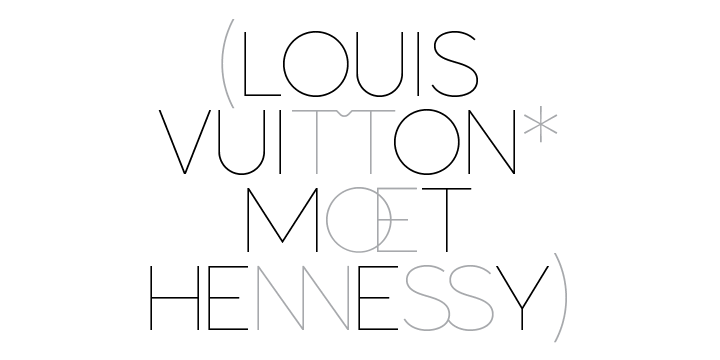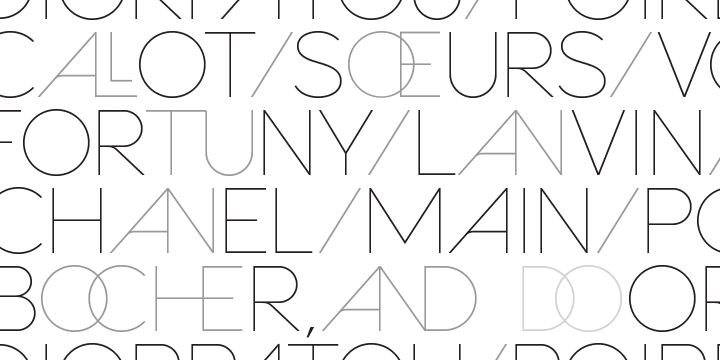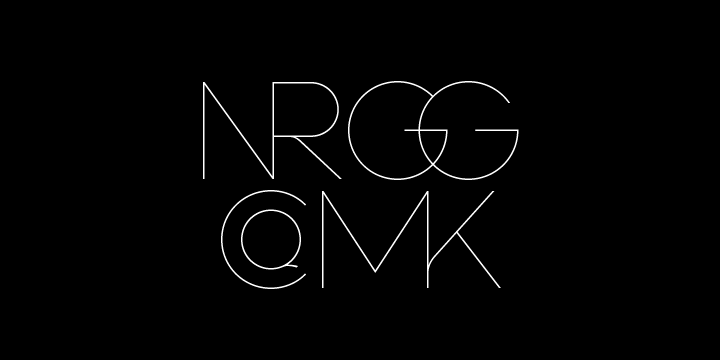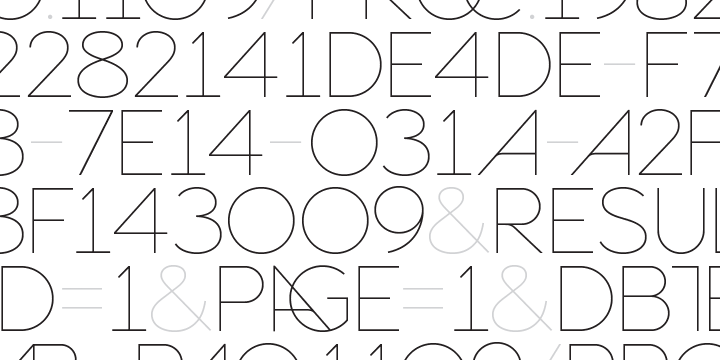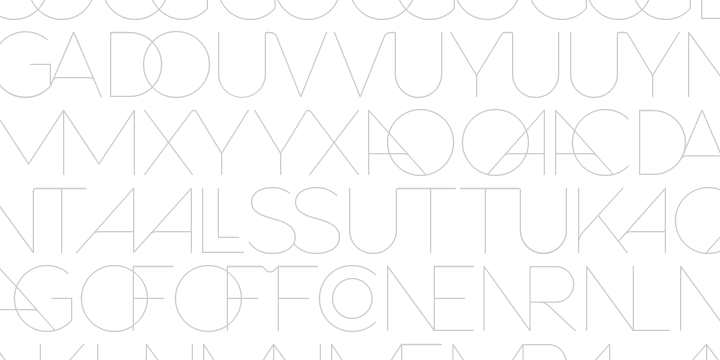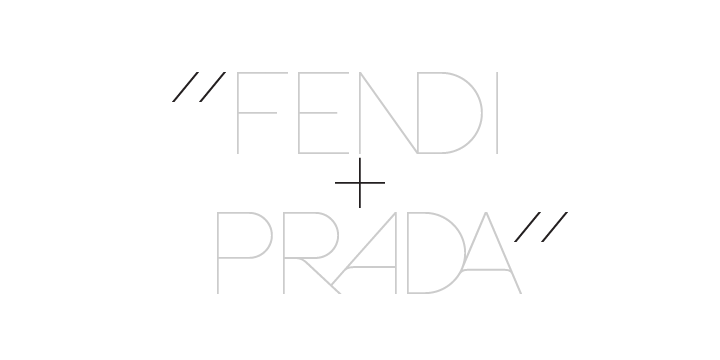
Sevigne
Sevigne is a highly refined, contemporary geometric sans, inspired by the ambience of high-end fashion and luxury. The inclusion of over 130 unique ligatures expand it's sensibility of alluring, well-balanced letterforms and distinctive style.
Stylistically, as an all-caps typeface, Sevigne exudes a greater sense of harmony and polish due to it's unicase form where the interplay of a limited amount of characters is the focus. Subtle, considered details are found within individual letters, contrasted by the complex, intersecting forms that make up the various ligatures.
With multiple stylistic sets added to the expanded ligatures, individual letters and ligature pairs can be carefully exchanged to fine-tune text settings for a unique custom type solution.
Features include:
- Expanded set of over 130 Ligatures, including alternates (ae, oe, fi, fl, ffi, ffl, ffj, ff, fh, fj, ft, tt, th, ct, st, oo, og, go, ogo, gog, la, ea, ev, ew, fy, ez, et, oc, ga, do, uv, vu, yu, uy, nn, mm, xy, yx, ao, oa, ac, da, aq, nt, aa, ll, ss, ut, tu, ka, ca, ag, of, off, co, ne, nr, nl, nd, nk, hn, mn, me, mp, al, an, af, ar, ak, ah, ad, ab, and, gg, all, co,